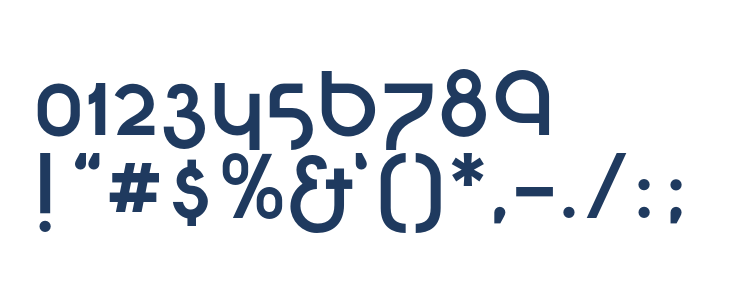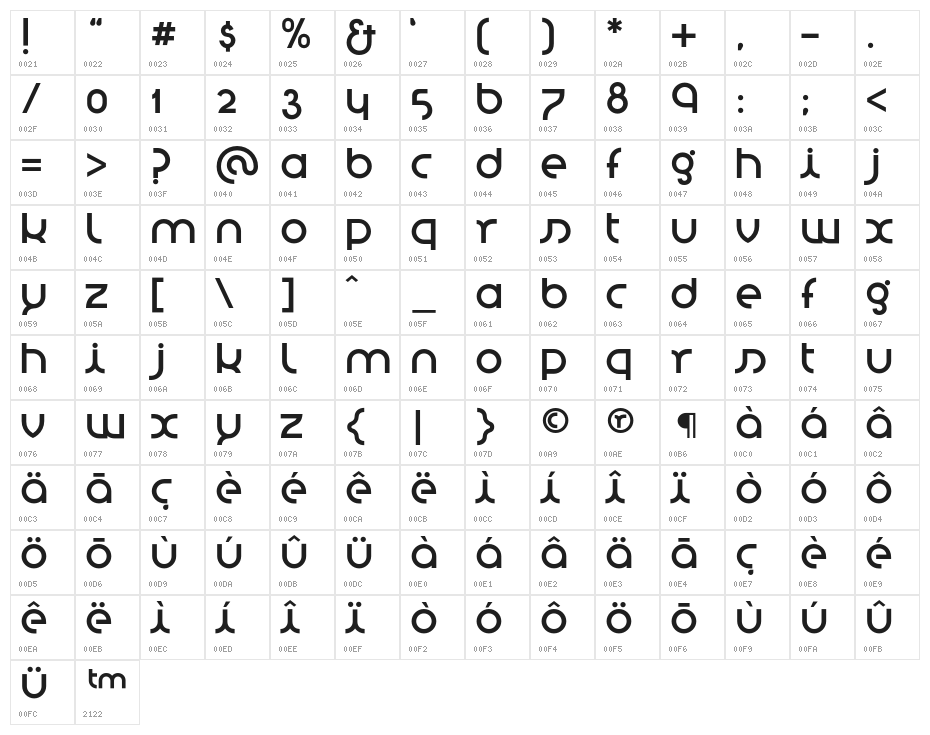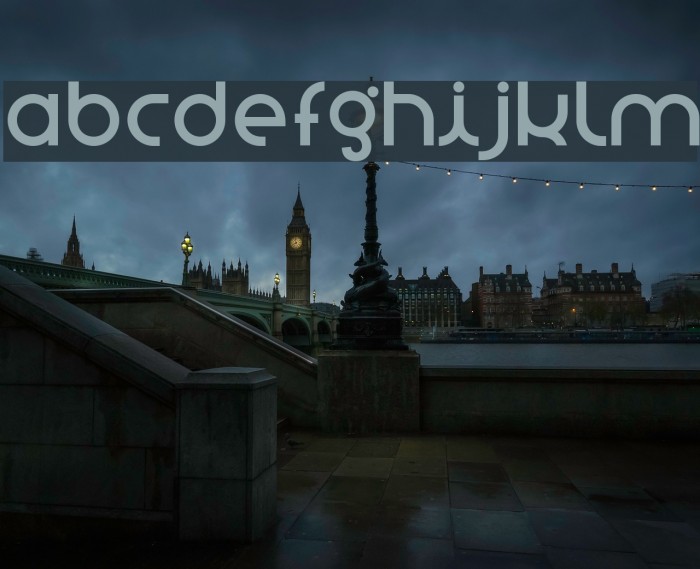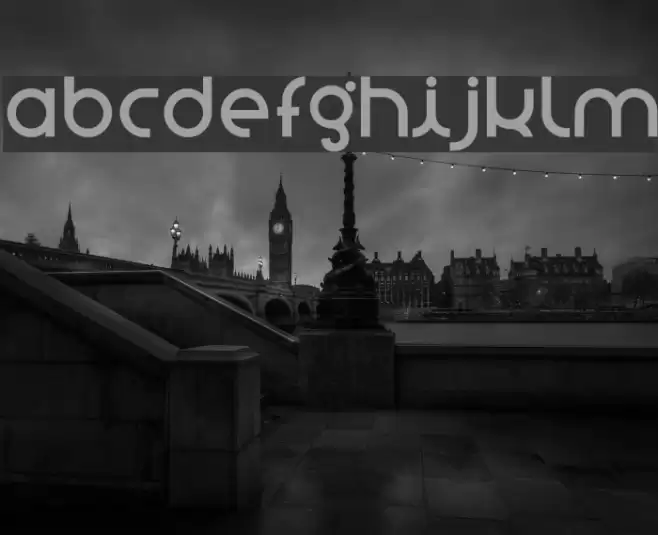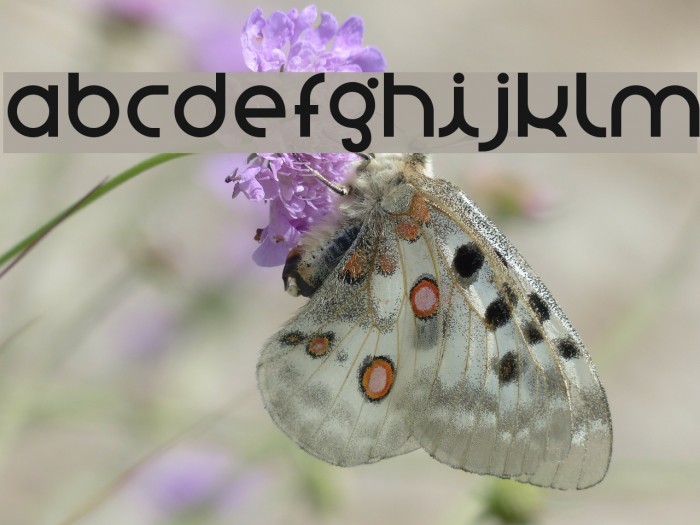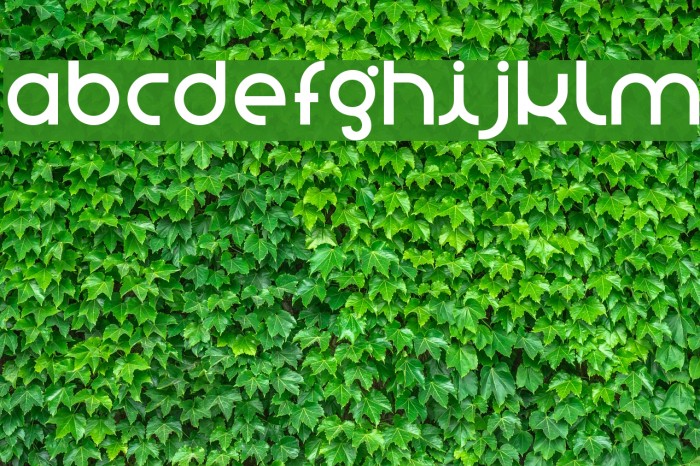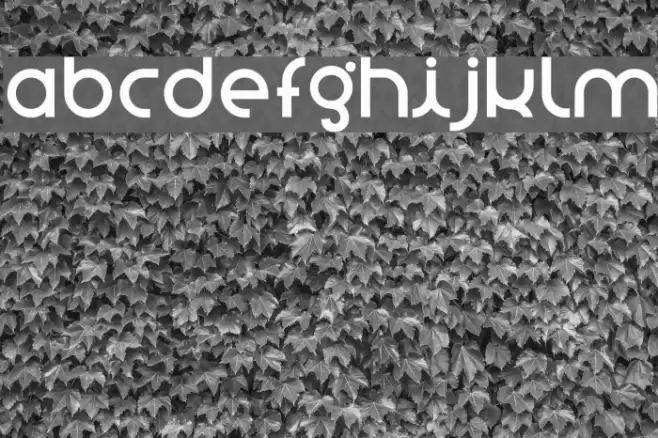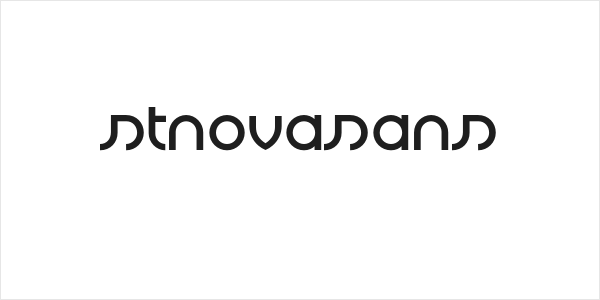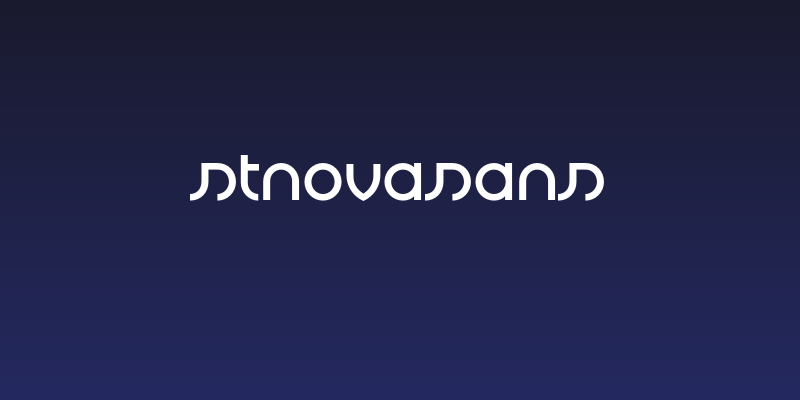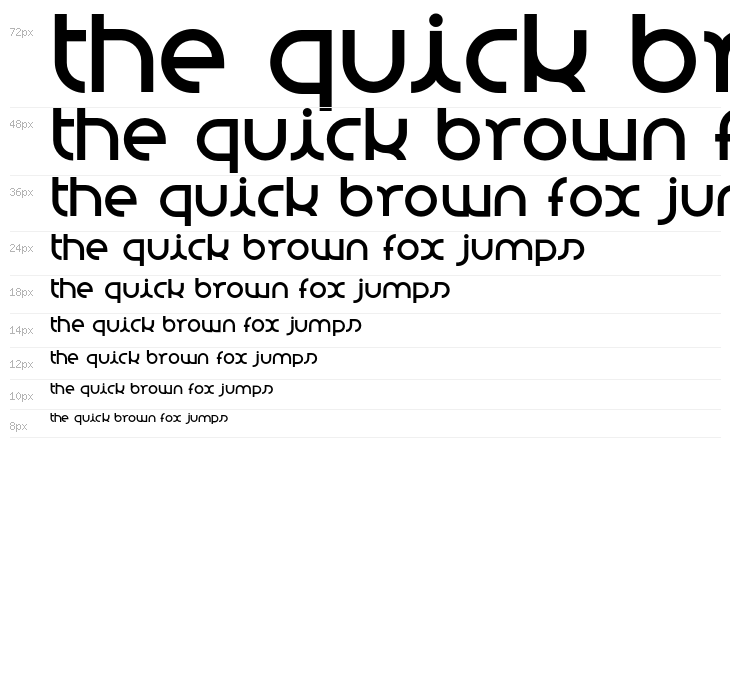
stnovasans Font
stnovasans Description
This font features a modern and clean design with a geometric structure. The characters are rounded and uniform, providing a sleek and contemporary look. The lowercase letters have a consistent height, and the uppercase letters maintain a balanced proportion. The numerals are bold and clear, making them easily readable. Special characters are distinct and well-defined, adding to the font's versatility. The overall appearance is minimalistic, making it suitable for a wide range of applications.
| Proposed Projects | Ideal for branding, digital interfaces, advertising, and editorial design. |